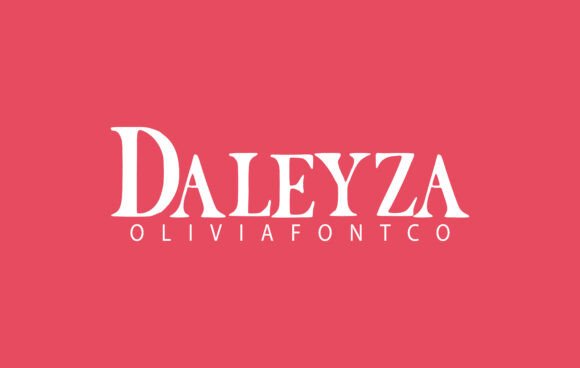
Introducing Daleyza Font: The Ultimate Handwritten Font for Creative Expression
Are you looking for a font that can add a touch of romance and elegance to your creative projects? Look no further than Daleyza Font, an authentic handwritten font designed to capture the hearts of designers and crafty enthusiasts alike. With its unique blend of sophistication and playfulness, Daleyza Font is poised to become your new favorite go-to font for a wide range of design applications.
The Story Behind Daleyza Font
Daleyza Font is the brainchild of a talented designer who sought to create a font that would stand out from the crowd. With a keen eye for detail and a deep understanding of typography, the designer carefully crafted each letter to ensure that Daleyza Font exudes a sense of romance and whimsy. The result is a font that is not only beautiful but also highly legible, making it perfect for use as both title and body text.
What Makes Daleyza Font So Special?
So, what sets Daleyza Font apart from other fonts on the market? Here are just a few reasons why this font is sure to become a staple in your design toolkit:
- Romantic Touch: Daleyza Font boasts a romantic touch that is hard to find in digital fonts. Its elegant strokes and curves evoke a sense of nostalgia and sophistication, making it perfect for designs that require a touch of class.
- Legibility: Unlike some handwritten fonts that can be difficult to read, Daleyza Font is highly legible, even at small sizes. This makes it ideal for use in body text, where clarity is essential.
- Versatility: Daleyza Font is incredibly versatile, making it suitable for a wide range of design applications, from magazine headlines and social media graphics to branding, wedding invitations, and more.
Design Applications for Daleyza Font
Daleyza Font is a chameleon of a font that can adapt to a variety of design applications. Here are some ideas to get you started:
- Magazine Headlines: Use Daleyza Font to create eye-catching headlines that grab readers’ attention and draw them into your story.
- Social Media Graphics: Add a touch of personality to your social media graphics with Daleyza Font, perfect for creating engaging posts and stories.
- Branding: Establish your brand’s identity with Daleyza Font, ideal for use in logos, business cards, and other marketing materials.
- Wedding Invitations: Make your wedding invitations truly special with Daleyza Font, adding a romantic touch to your big day.
- Cards and Stationery: Use Daleyza Font to create beautiful cards and stationery that showcase your personal style.
Tips for Using Daleyza Font Effectively
To get the most out of Daleyza Font, here are some expert tips to keep in mind:
- Mix and Match: Experiment with different font sizes, colors, and styles to create visual interest and hierarchy in your designs.
- Pair with Other Fonts: Combine Daleyza Font with other fonts to create a unique and harmonious typography scheme.
- Pay Attention to Kerning: Adjust the kerning and spacing between letters to ensure that your text looks polished and professional.
In conclusion, Daleyza Font is a true gem in the world of typography. With its romantic touch, legibility, and versatility, this font is poised to become a favorite among designers and crafty enthusiasts alike. Whether you’re working on a magazine headline, social media graphic, or wedding invitation, Daleyza Font is the perfect choice for adding a touch of elegance and sophistication to your designs.